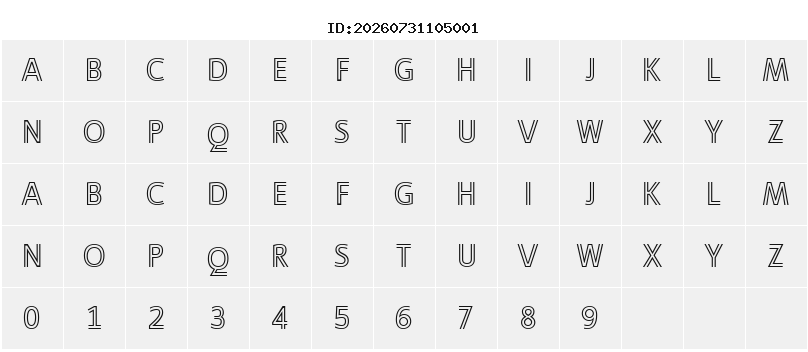
Ligurino Outline Preview
• Font Name: Ligurino Outline
• Designer: Ray Larabie
• Manufacturer: Ray Larabie
About Ligurino Outline.ttf
Ligurino Outline.ttf is a modern, elegant sans-serif font designed for ultimate readability and visual harmony. Perfect for branding, headlines, web design, and print materials.